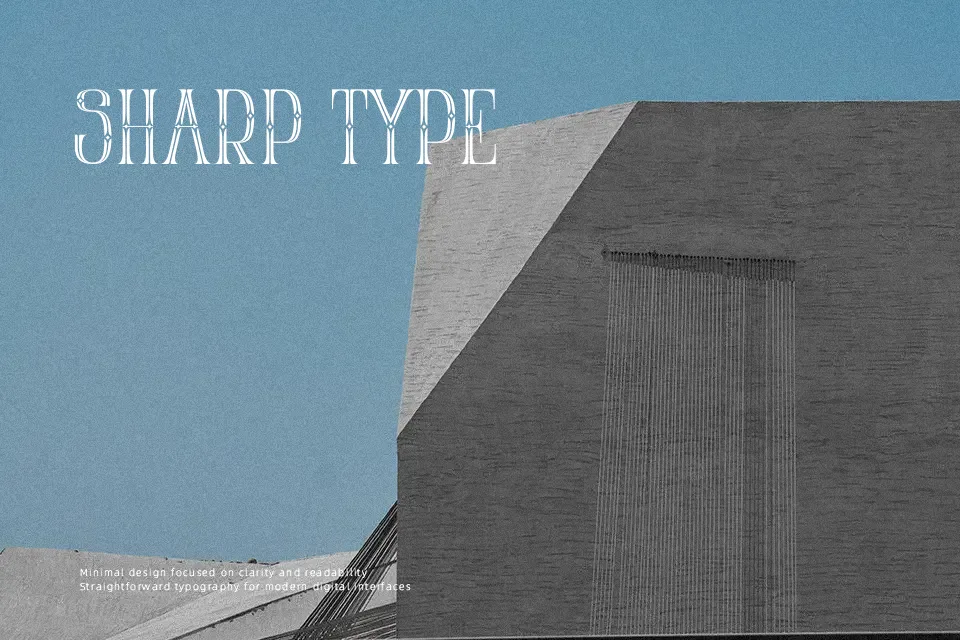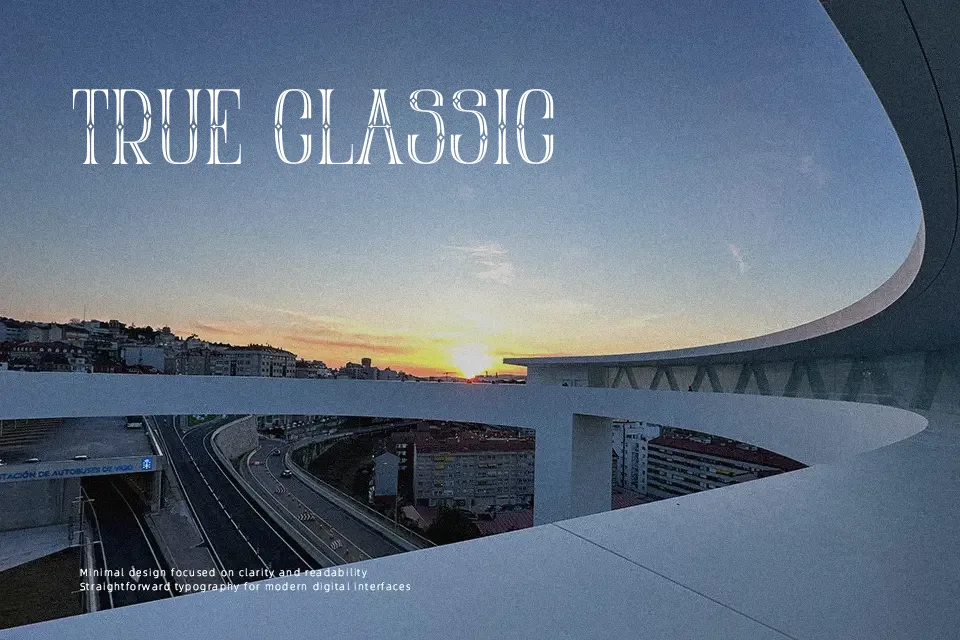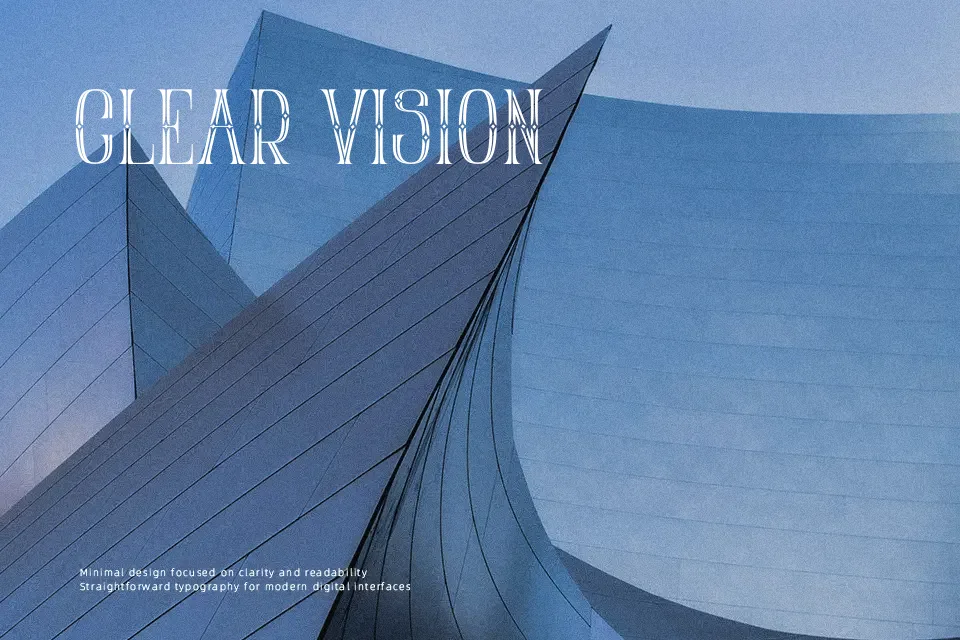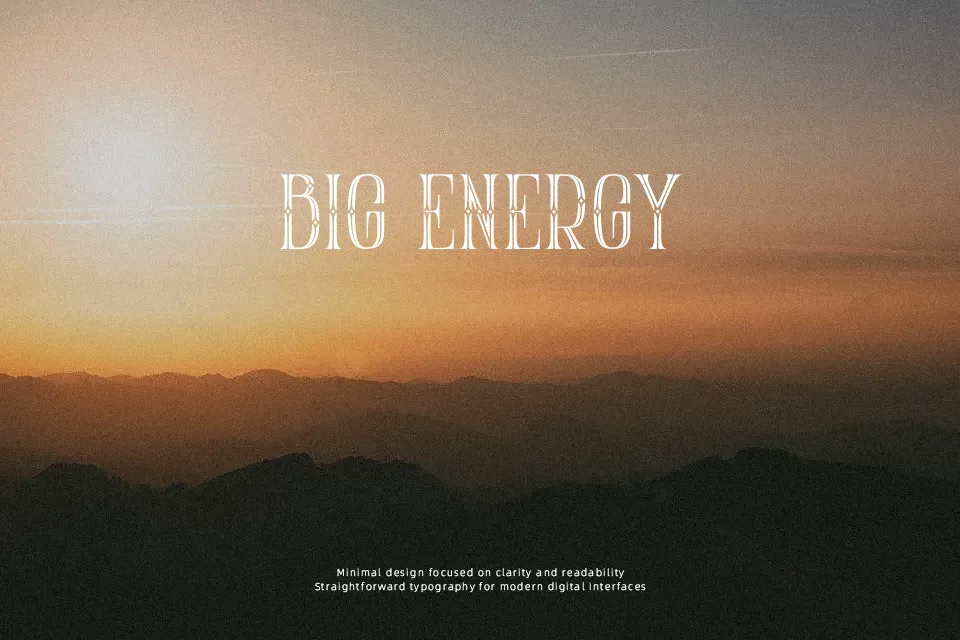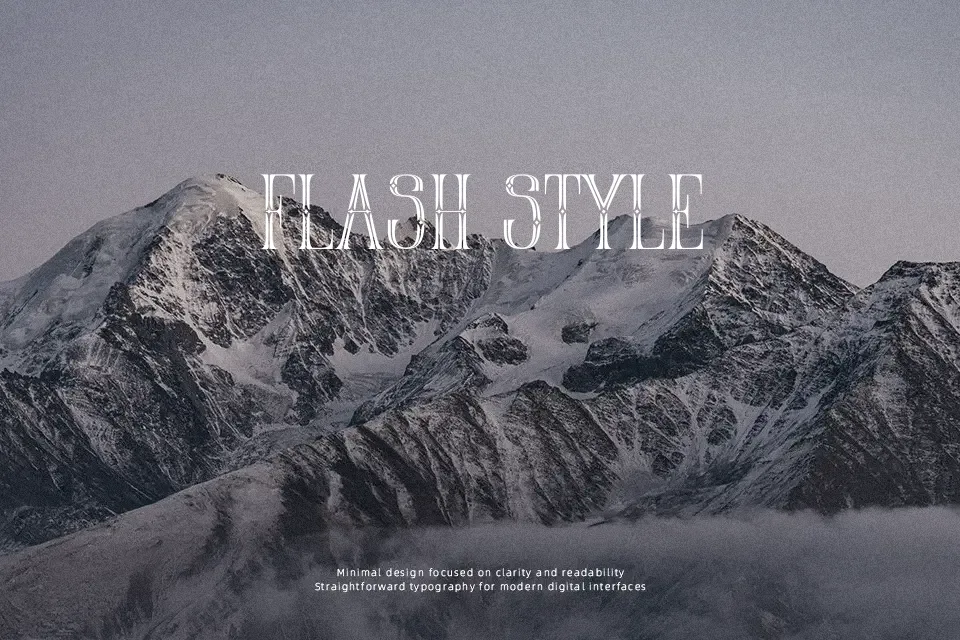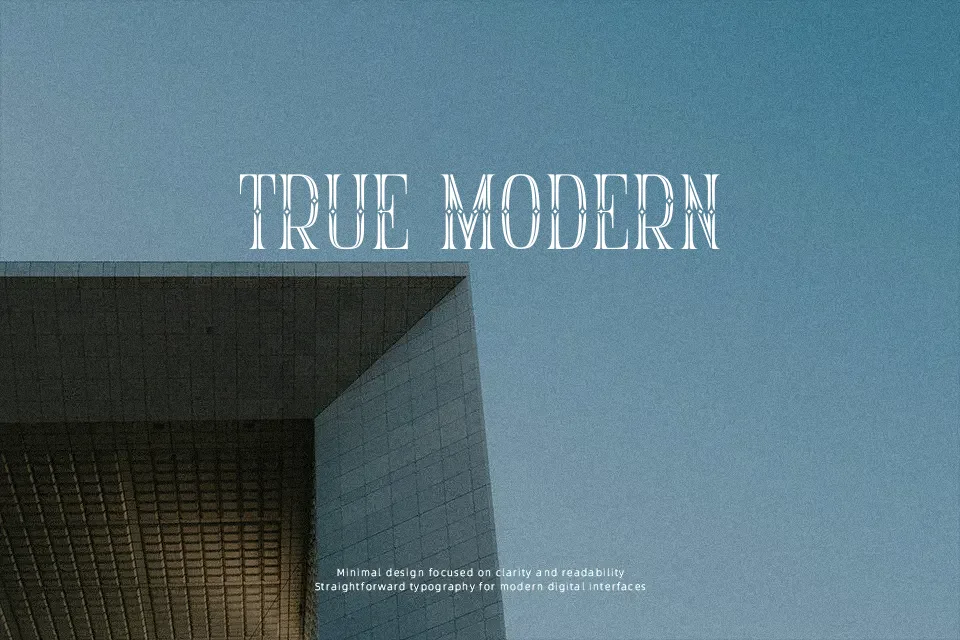
Roses Queen Font
A short product label or poster headline benefits immensely from the refined structure of Roses Queen Font. As a decorative retro serif, this typeface showcases elegant stroke contrast and stylized proportions that immediately capture attention. The sweeping curves provide a strong vintage aesthetic while maintaining a balanced visual weight. While the letterforms present excellent clarity in medium to large display contexts, the decorative details become less effective at smaller sizes. The deliberate spacing helps establish an inviting rhythm for prominent headers, though its intricate nature makes it less suited for continuous reading in dense paragraphs.
vintage product packaging
cosmetic branding
website hero headlines
spreadsheet data
Perfect for branding, fashion, and logo, with a classic and decorative style.